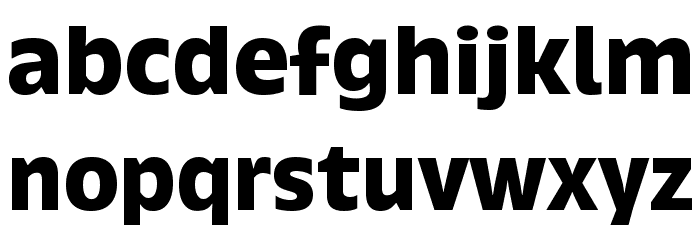
Koufeto Font
This font exhibits a bold and robust design, characterized by thick strokes and a strong presence. The uppercase and lowercase letters maintain a consistent weight, providing a sense of uniformity and balance. The numerals are clear and easily distinguishable, making them suitable for various applications. The special characters are well-defined, ensuring readability and versatility. The overall appearance is modern and impactful, making it ideal for attention-grabbing headlines and branding projects.
A bold, modern font with strong, uniform strokes and clear characters.
- Font: Koufeto
by HammerBro101 - Weight: Regular
- Proposed Projects: Ideal for branding, advertising, headlines, and any project requiring a bold and modern typeface.